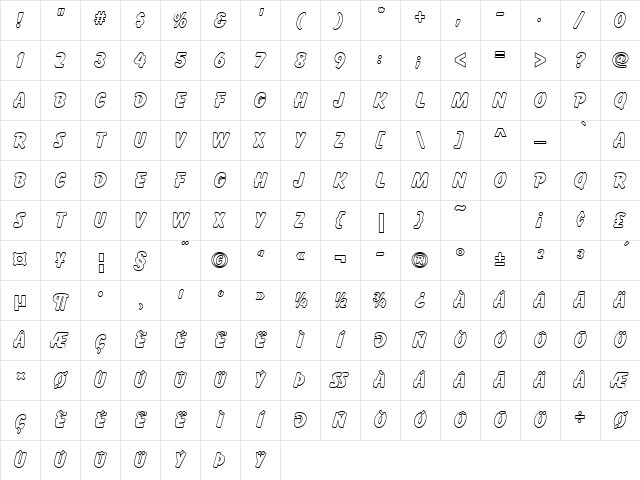
BalloonOutPExtBol Regular
Design Context for BalloonOutPExtBol
BalloonOutPExtBol is a composed and adaptable typeface that performs quietly and consistently across a wide range of design contexts.